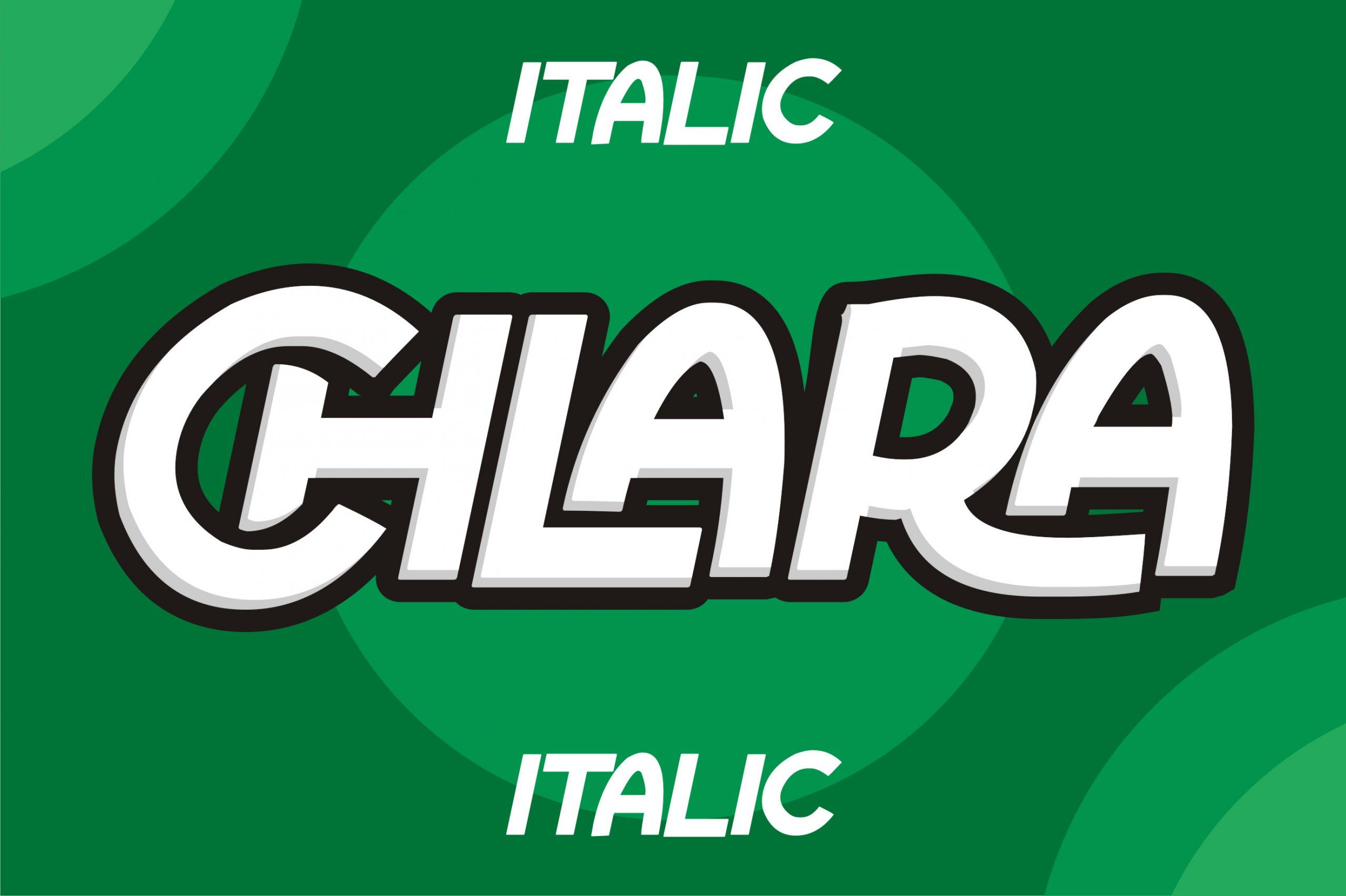
Chlara Display Font
This is a cool and trendy looking display font. This font is PUA encoded which means you can access all of the glyphs and swashes with ease!